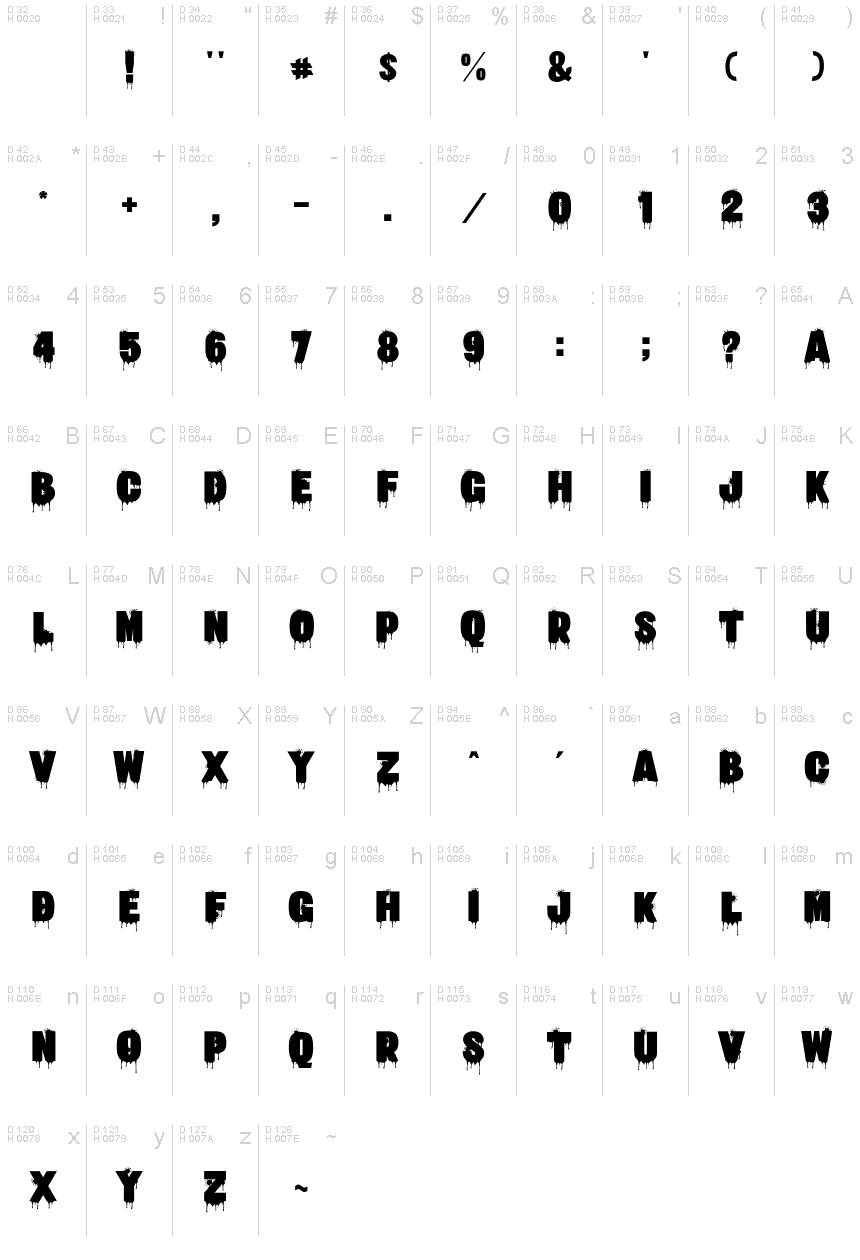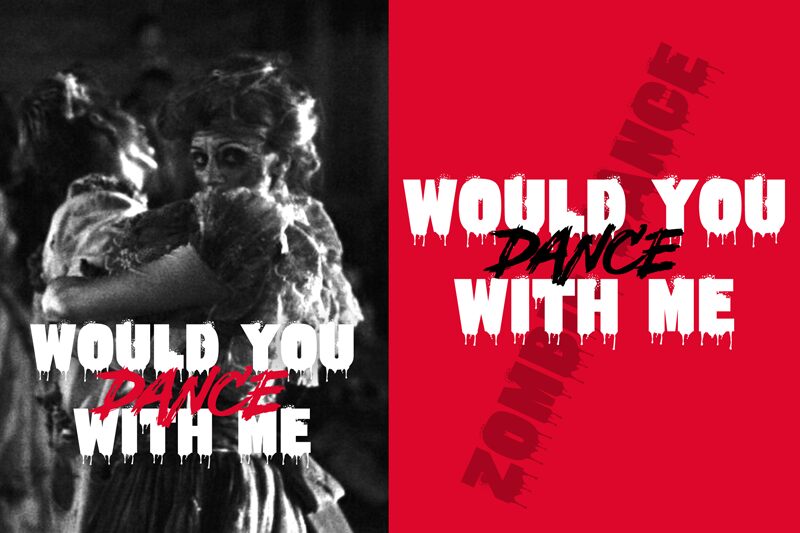
Tumpah Darahku
Unleash the chilling allure of Tumpah Darahku, a font that embodies the essence of fear and fascination. Designed by Tigadestd, this extra-bold display font is not for the faint-hearted. With its eerie character forms that seem to drip with intensity, Tumpah Darahku is an impeccable choice for designers aiming to inject a dose of the macabre into their creative projects.
Perfect for Halloween designs, horror-themed invitations, or any endeavor that calls for a spine-tingling twist, this scary-style typeface will make your message stand out in a most hauntingly memorable way. Dare to embrace the dark side with Tumpah Darahku—the font that speaks volumes in whispers and screams alike.